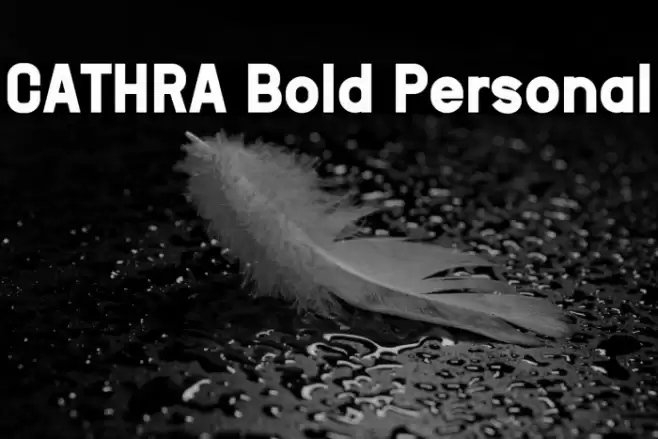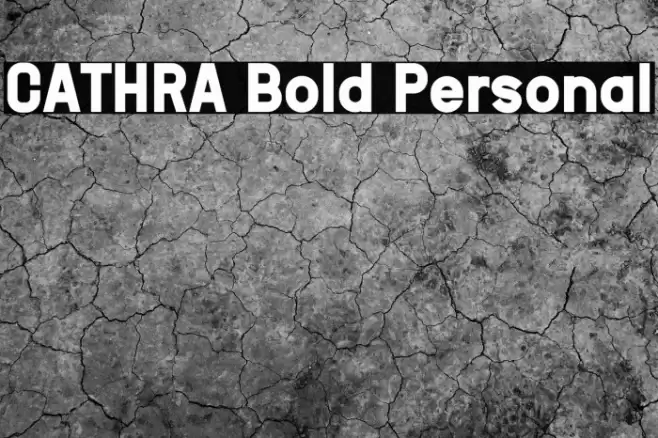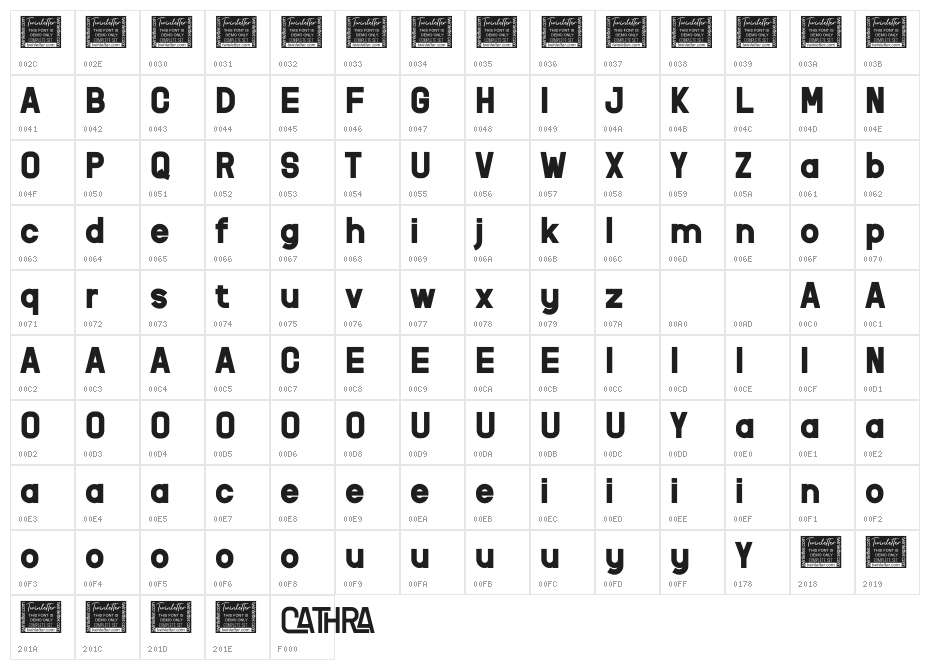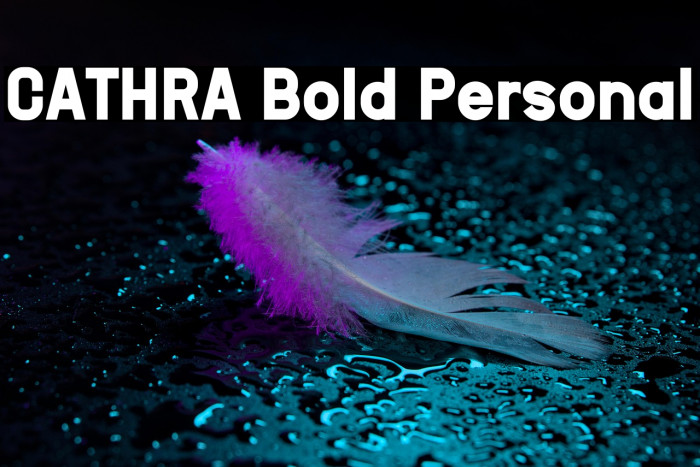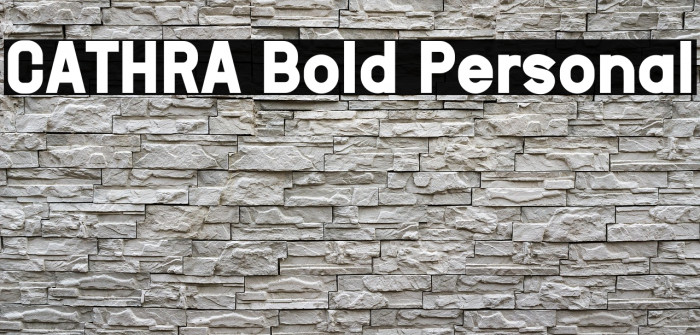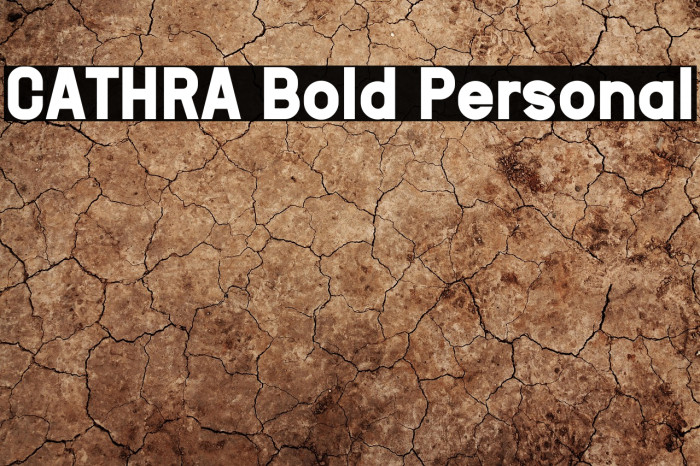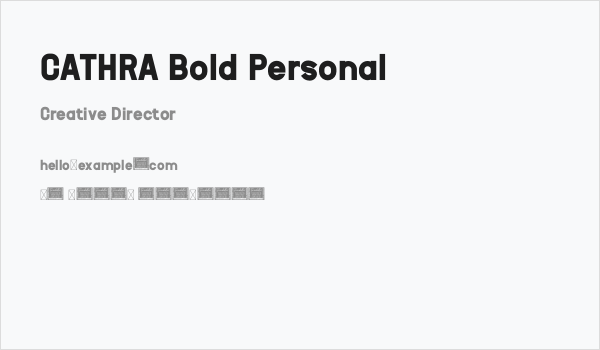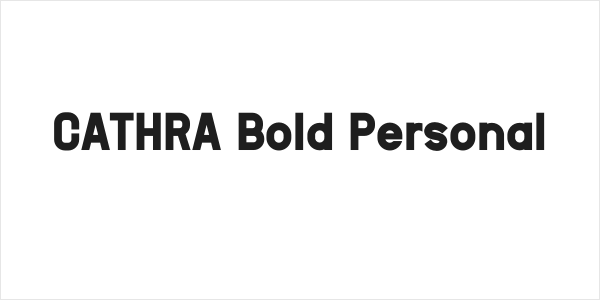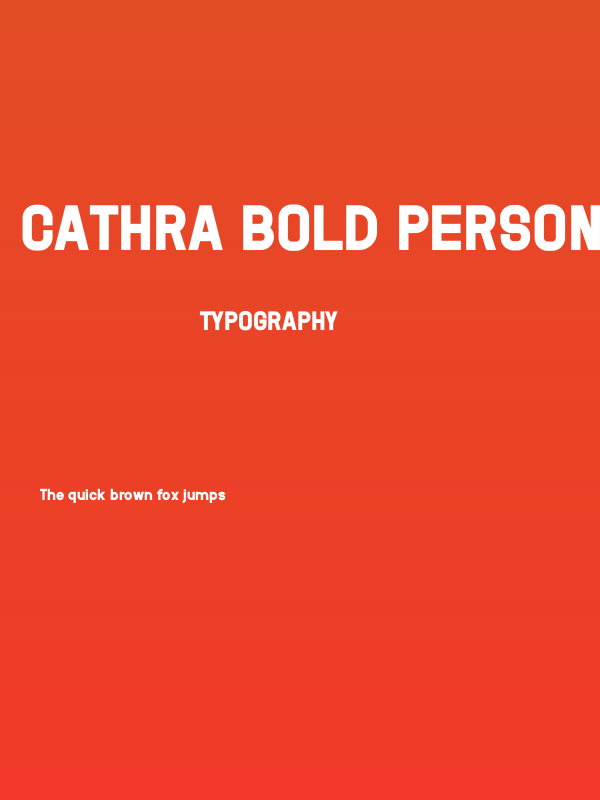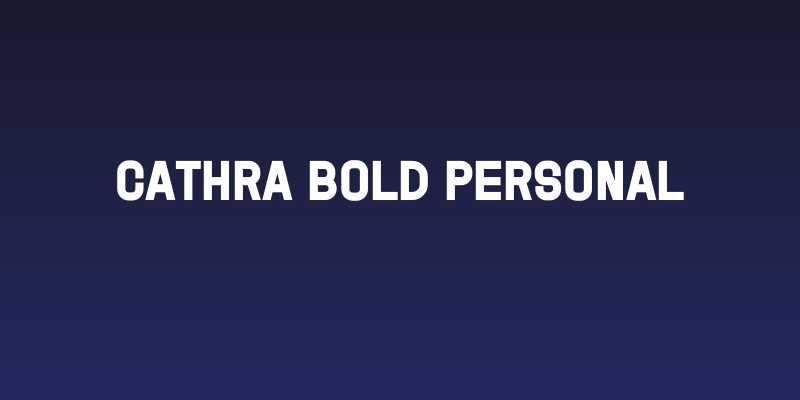
CATHRA Bold Personal Font
CATHRA Bold Personal Description
This font features a bold and robust design with clean, straight lines and a strong presence. The uppercase and lowercase letters are well-proportioned, offering a modern and impactful look. The characters are evenly spaced, providing a balanced and harmonious appearance. The font's bold weight makes it suitable for attention-grabbing headlines and titles. Its geometric shapes and uniform stroke widths contribute to a contemporary and professional aesthetic, making it versatile for various design applications.
A bold, modern font with clean lines and a strong presence from Uncategorized fonts.
- Proposed Projects: Ideal for branding, advertising, headlines, posters, and digital media where a bold statement is needed.